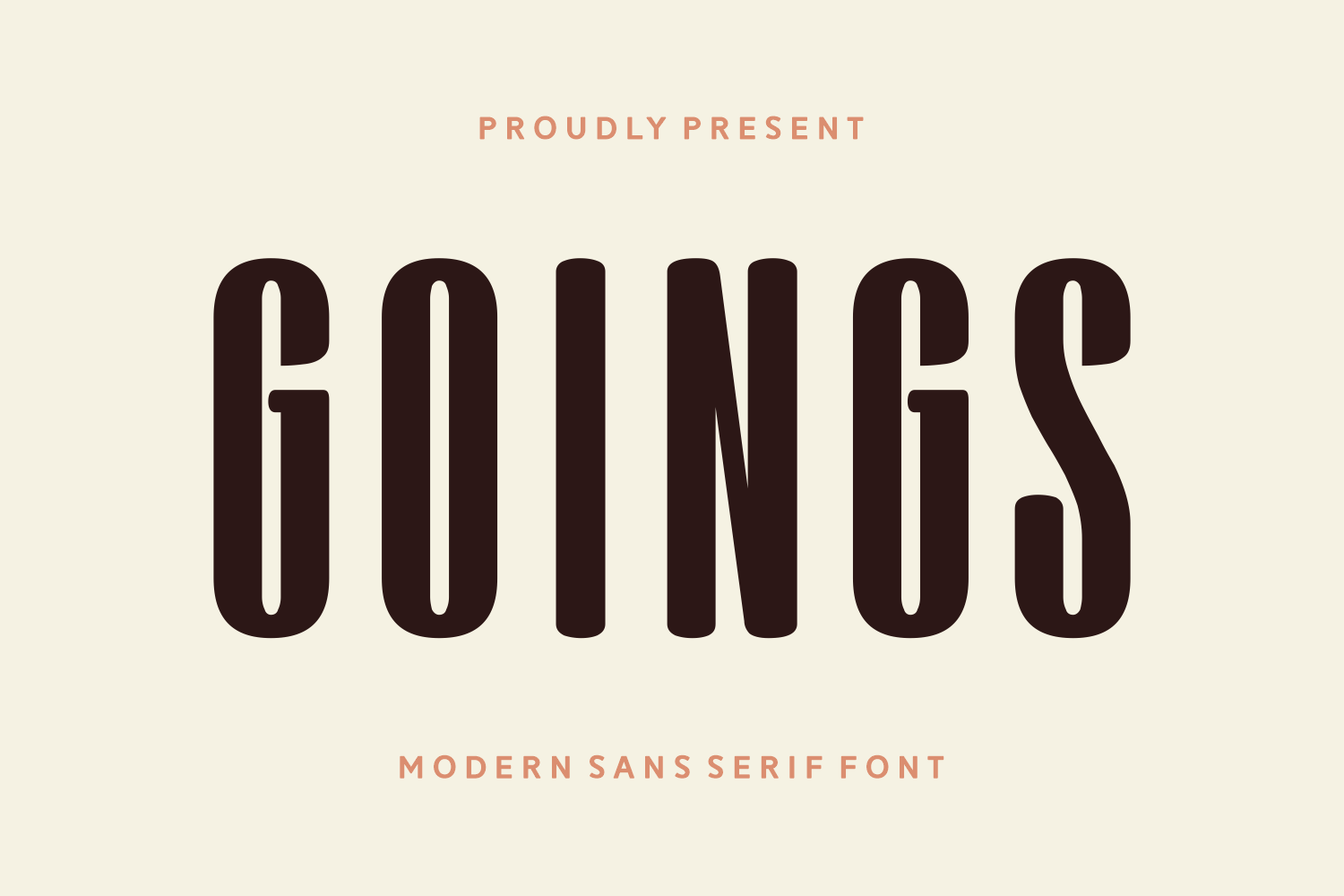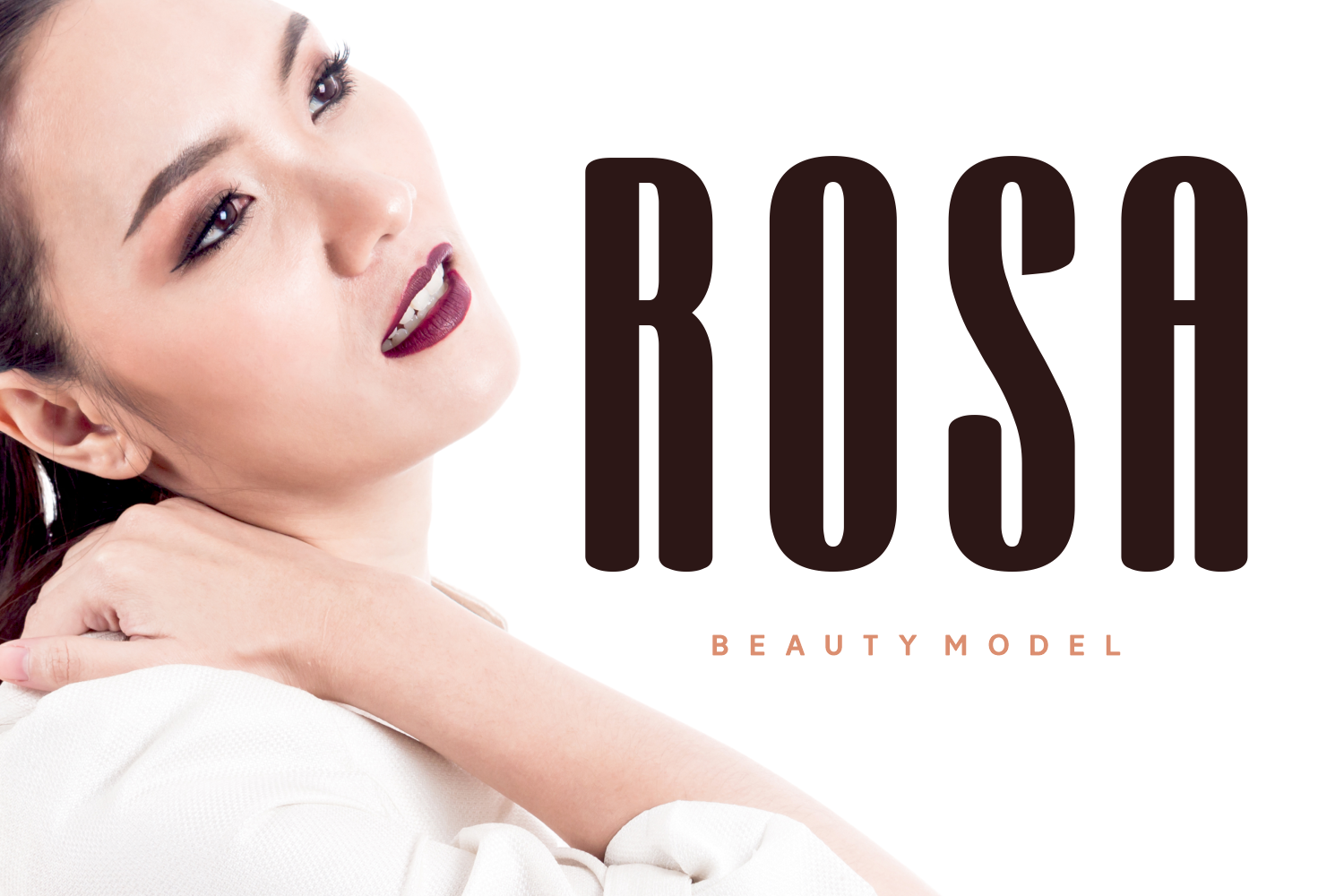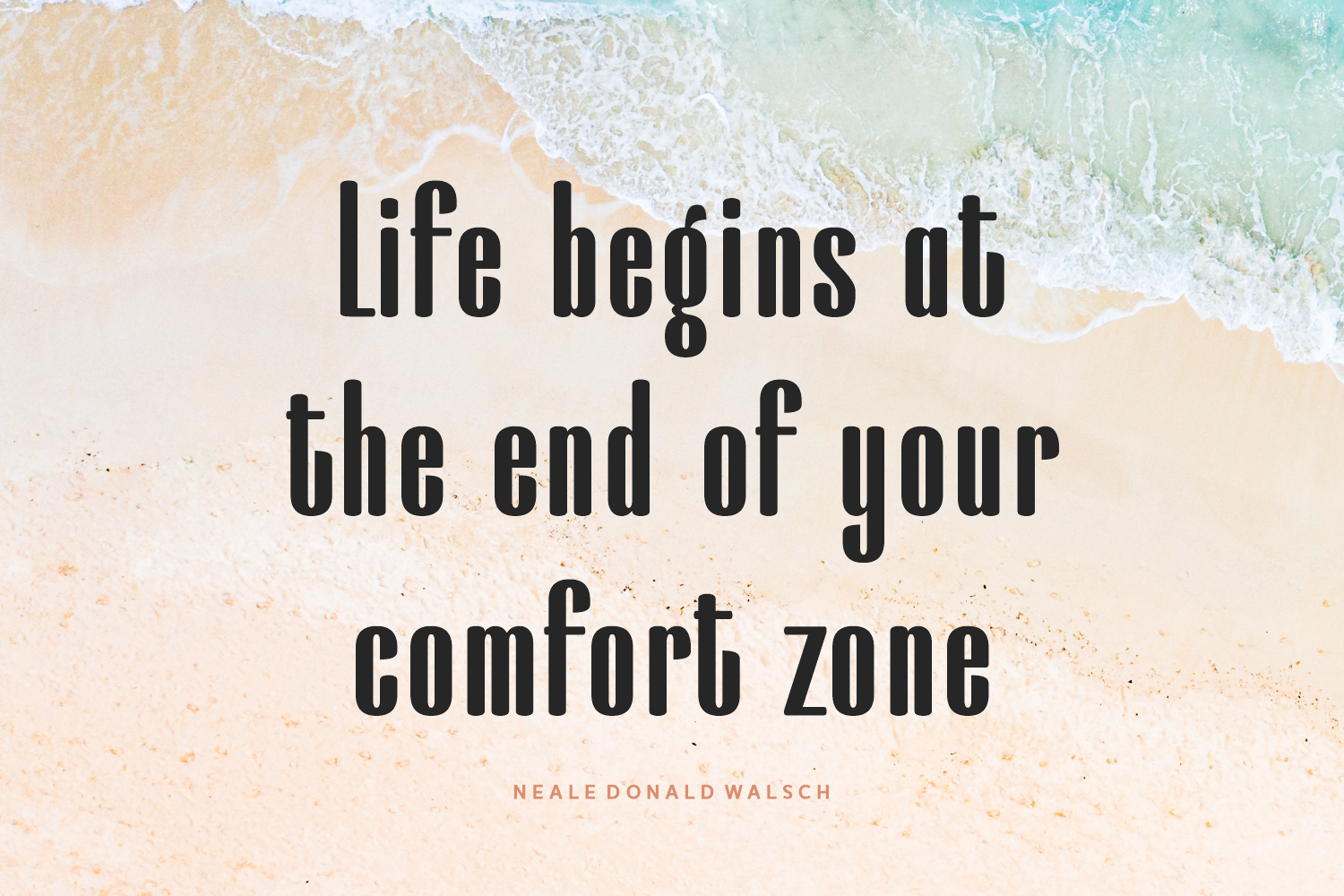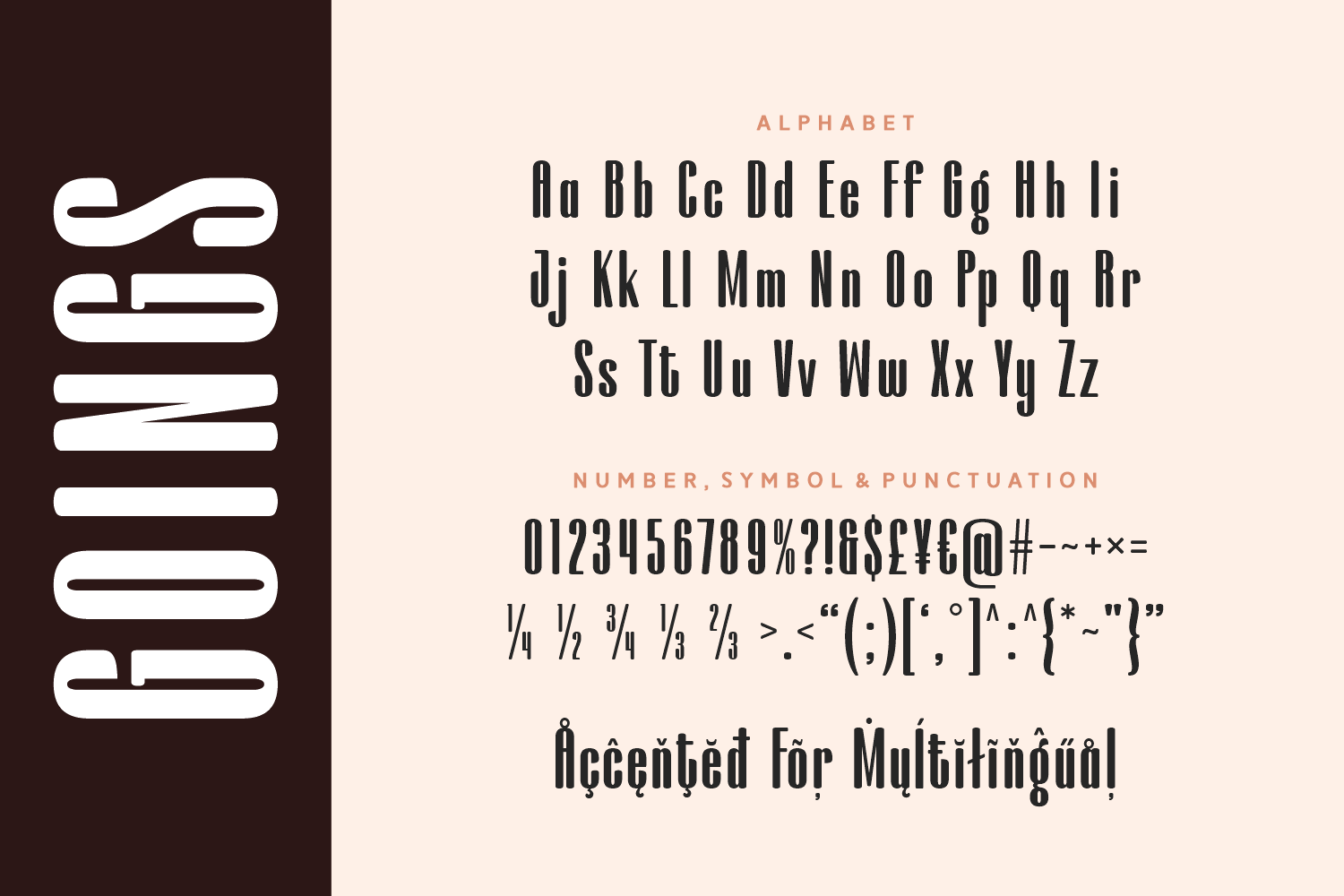
Goings is a bold, ultra-condensed sans-serif font with a strong vintage-modern vibe. With its tall letterforms and rounded corners, it brings a retro punch that works beautifully for posters, branding, editorial headlines, and impactful logo designs.